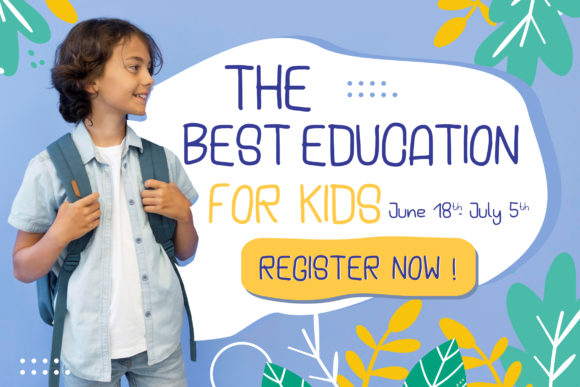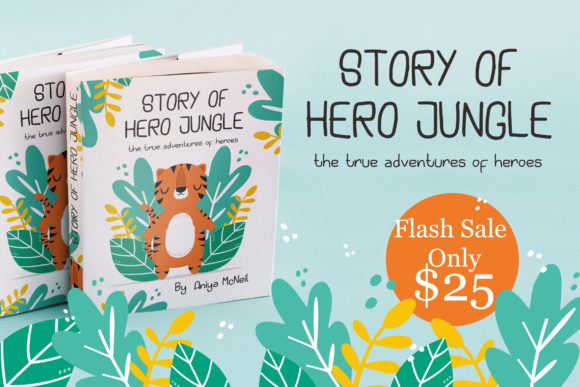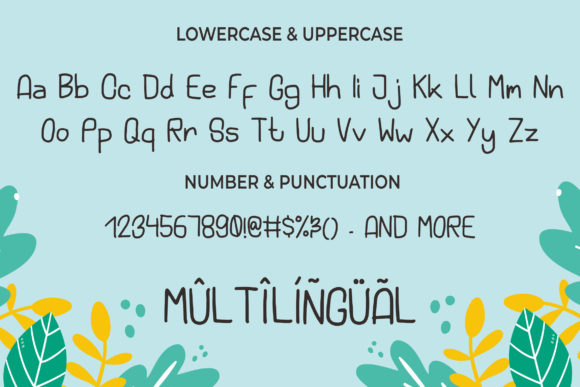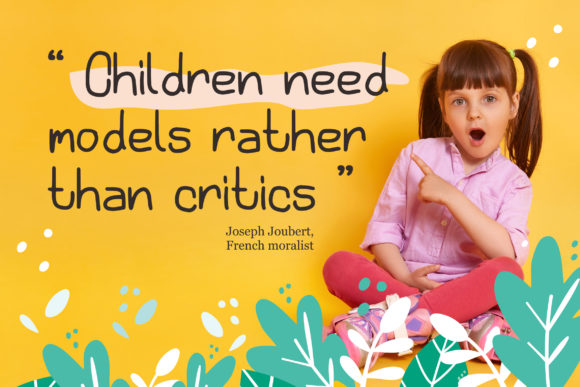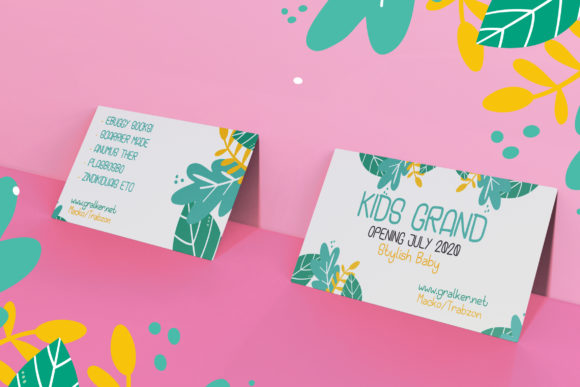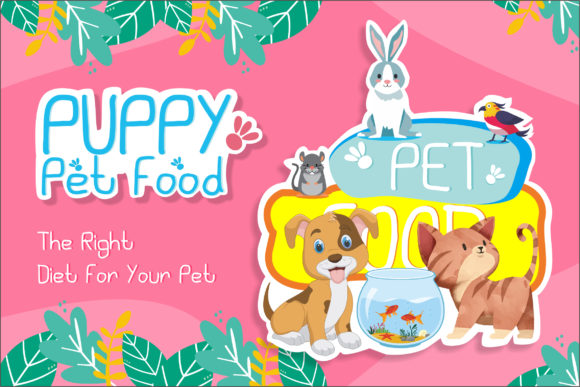
Introduction to Kid Tribe Font
Have you ever been working on a creative project, pouring your heart and soul into it, only to feel like something’s missing? That’s where the right design resource can make all the difference. For designers, a high-quality font can elevate a project from bland to grand, and that’s exactly what the Kid Tribe Font does.
This simple yet stylish display font is perfect for adding a touch of whimsy to your designs. With its clean lines and transparent background, it’s a versatile choice for any creative project. Whether you’re designing a logo, a poster, or a website, the Kid Tribe Font is sure to make your work stand out.
Key Features of Kid Tribe Font
- High-quality design resource ideal for creative projects, such as children’s books, educational materials, and websites.
- Includes a large character set, including uppercase and lowercase letters, numbers, and punctuation marks, making it a versatile font for various creative projects.
- Designed with a playful and modern aesthetic, Kid Tribe Font is perfect for adding a touch of whimsy to your design.
- Features a large x-height and bold lines, making it highly legible and suitable for use in both digital and print media.
Honest Review: Kid Tribe Font
I recently stumbled upon the Kid Tribe Font and I have to say, it’s a great addition to any design resource. The high-quality font is perfect for creative projects that require a fun and playful touch.
The Kid Tribe Font offers a lot of flexibility, making it suitable for a wide range of design applications. One of the standout features is the transparent background, which allows for easy layering and composition.
- ✨ Versatile design that can be used in various creative projects
- ✨ High-quality font that’s suitable for print and digital designs
- ✨ Transparent background for easy layering and composition
- ⚠️ The font may not be suitable for professional or formal designs
- ⚠️ The free download may not include all the styles and variations
Overall, I’m impressed with the Kid Tribe Font. It’s a great resource for designers who want to add a playful touch to their creative projects. While it may not be suitable for all design applications, it’s definitely worth checking out for its versatility and high-quality design.
How to Use Kid Tribe Font
The Kid Tribe Font is a high-quality design resource that can elevate your creative project to the next level. With its unique and playful style, it’s perfect for designing for kids, education, or any project that requires a fun and youthful vibe.
Here are some tips to get the most out of the Kid Tribe Font: Experiment with different font sizes and styles to create a visually appealing design. Use the font in combination with other design elements, such as icons or graphics, to create a cohesive look.
The Kid Tribe Font is perfect for designing for kids, education, or any project that requires a fun and youthful vibe. It’s also great for creating custom logos, social media graphics, or even marketing materials.